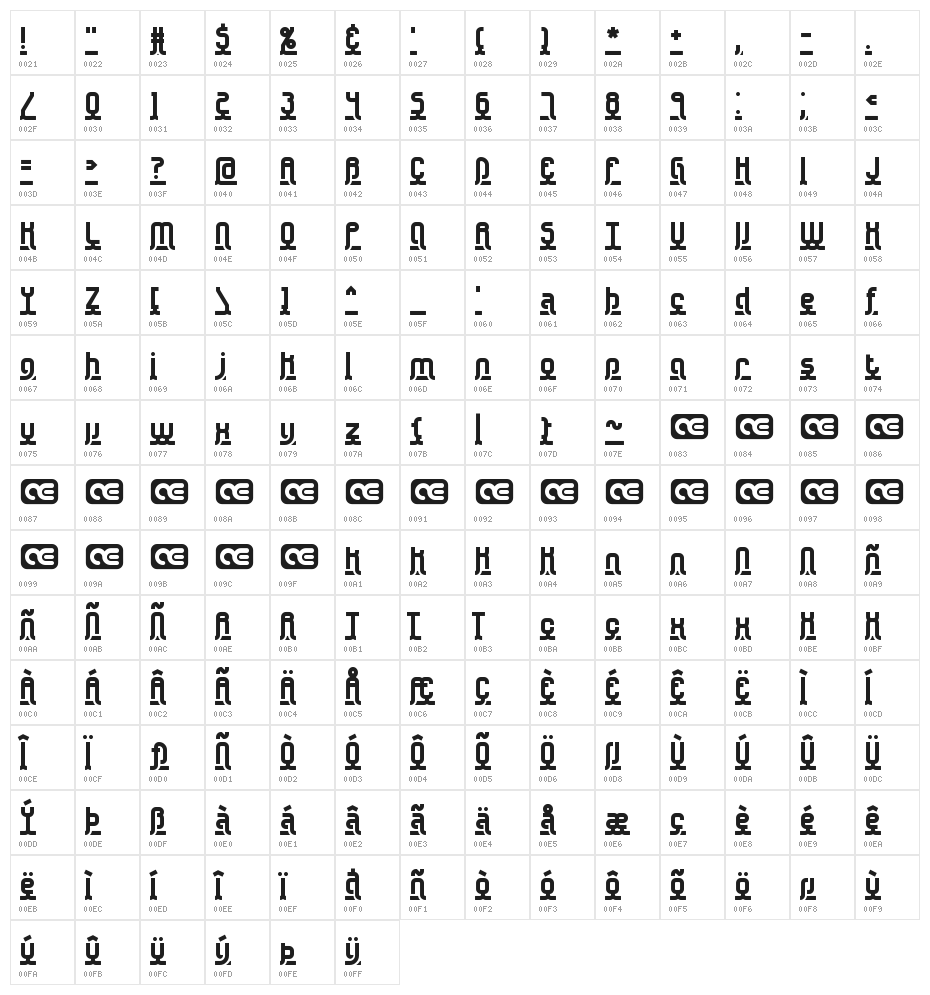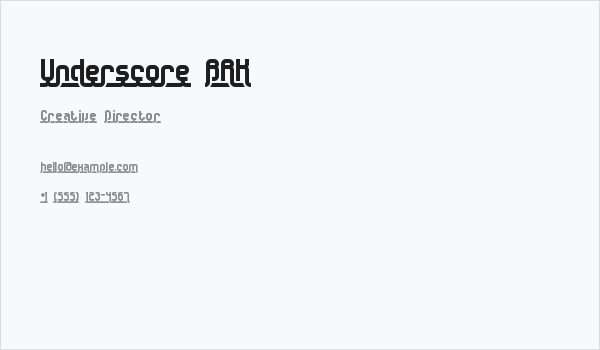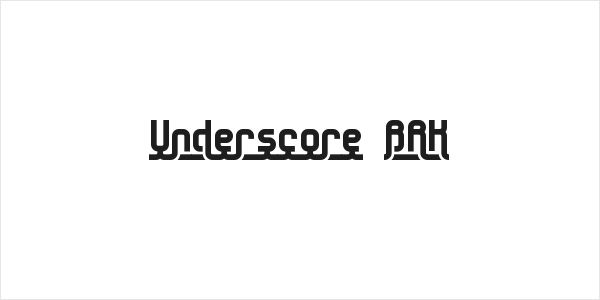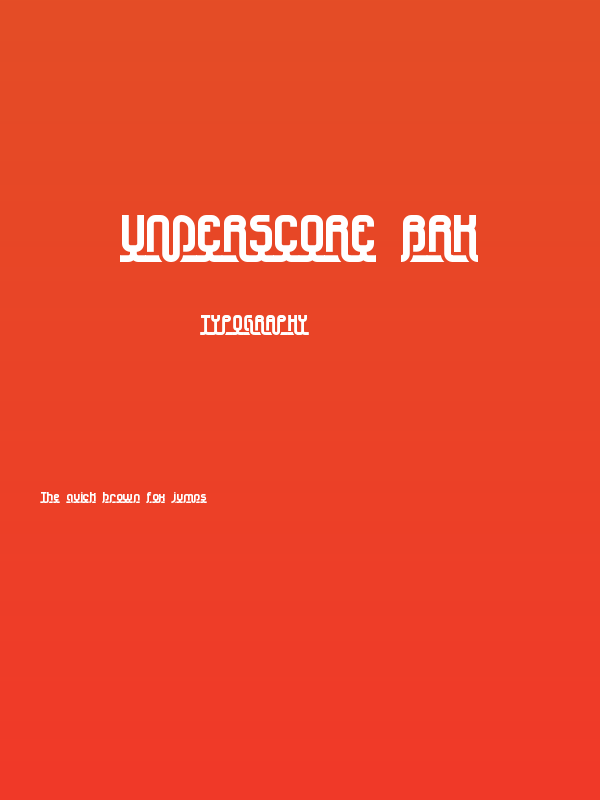
Underscore BRK Font
Underscore BRK Description
This font features a bold, geometric design with a distinct underscore element integrated into each character. The uppercase and lowercase letters share a consistent style, emphasizing a modern and futuristic aesthetic. The characters are constructed with thick, uniform strokes, creating a strong visual impact. The numbers and special characters maintain the same design principles, ensuring a cohesive look across all elements. The font's unique style makes it stand out, with its bold lines and integrated underscores adding a layer of complexity and interest.
Proposed ProjectsIdeal for futuristic branding, tech-related projects, and modern poster designs.